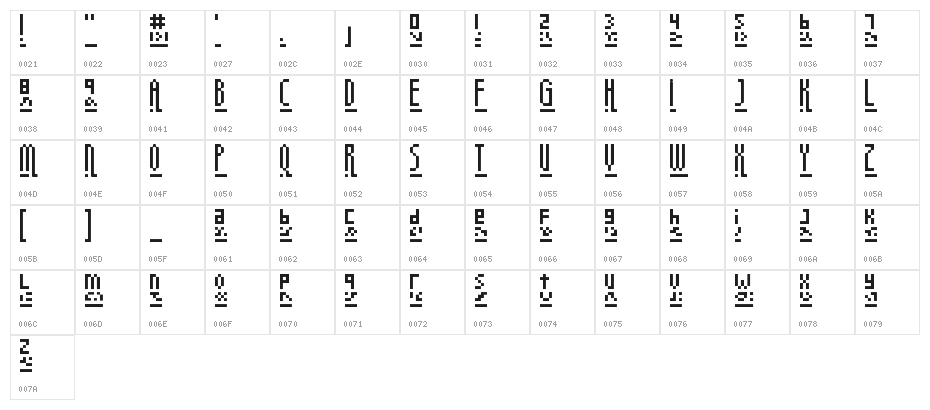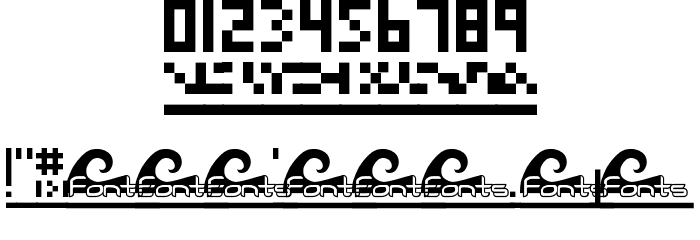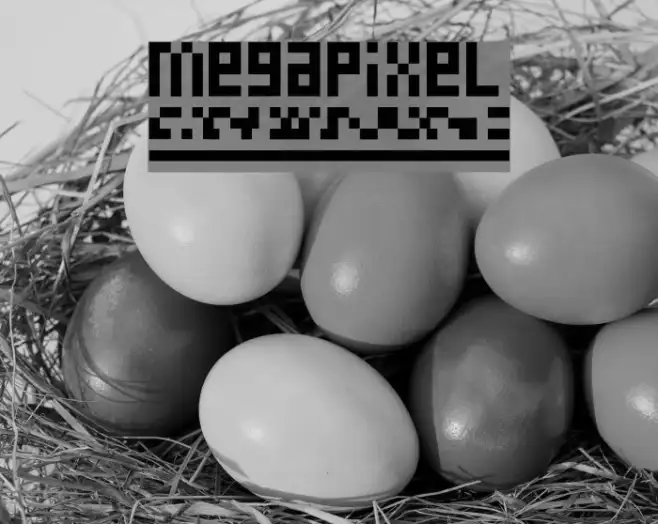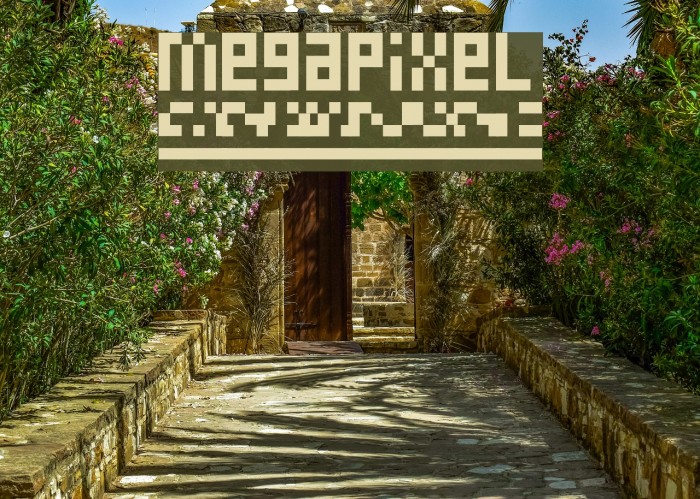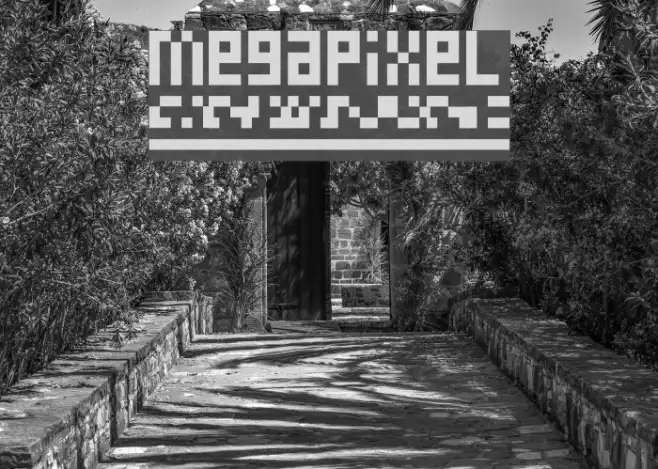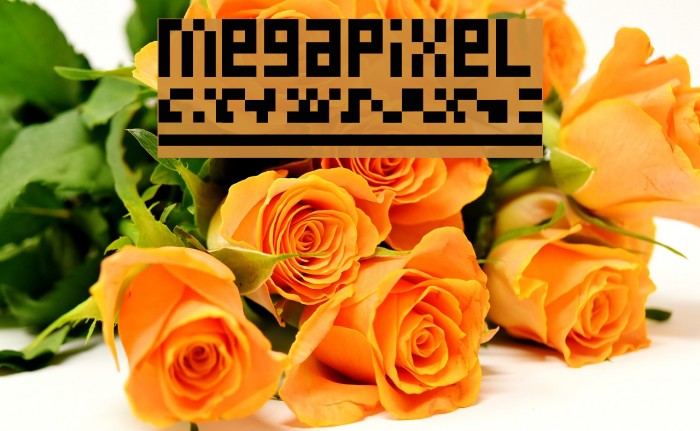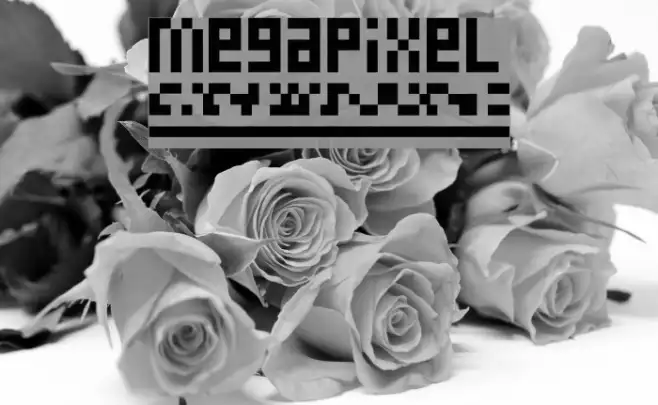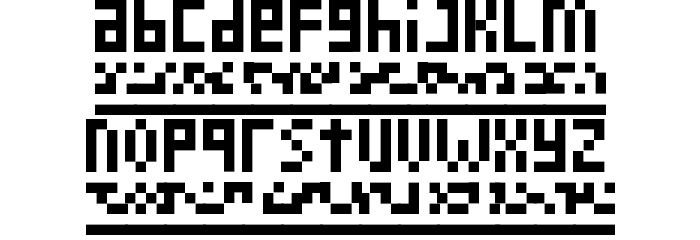
megapixel Font
megapixel Description
This font features a bold and geometric design with a distinct, blocky appearance. The characters are constructed with thick, uniform strokes, giving them a strong and impactful presence. The uppercase and lowercase letters maintain a consistent height, contributing to a cohesive look. The numbers and special characters follow the same design principles, ensuring uniformity across all glyphs. The font's style is reminiscent of digital or pixel art, making it suitable for projects that require a modern and tech-inspired aesthetic. Its unique design makes it stand out, making it ideal for creative and unconventional uses.
| Proposed Projects | Ideal for digital art, tech branding, video game graphics, and modern posters. |